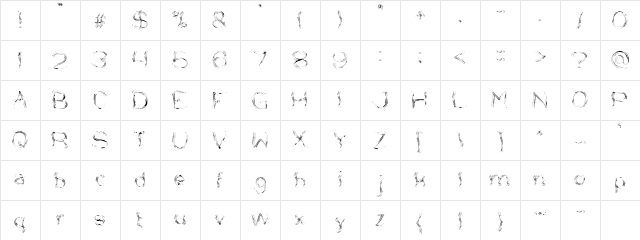
Nice Dream Come True Regular
Design Context for Nice Dream Come True Typeface
Nice Dream Come True is a composed and adaptable typeface that performs quietly and consistently across a wide range of design contexts.